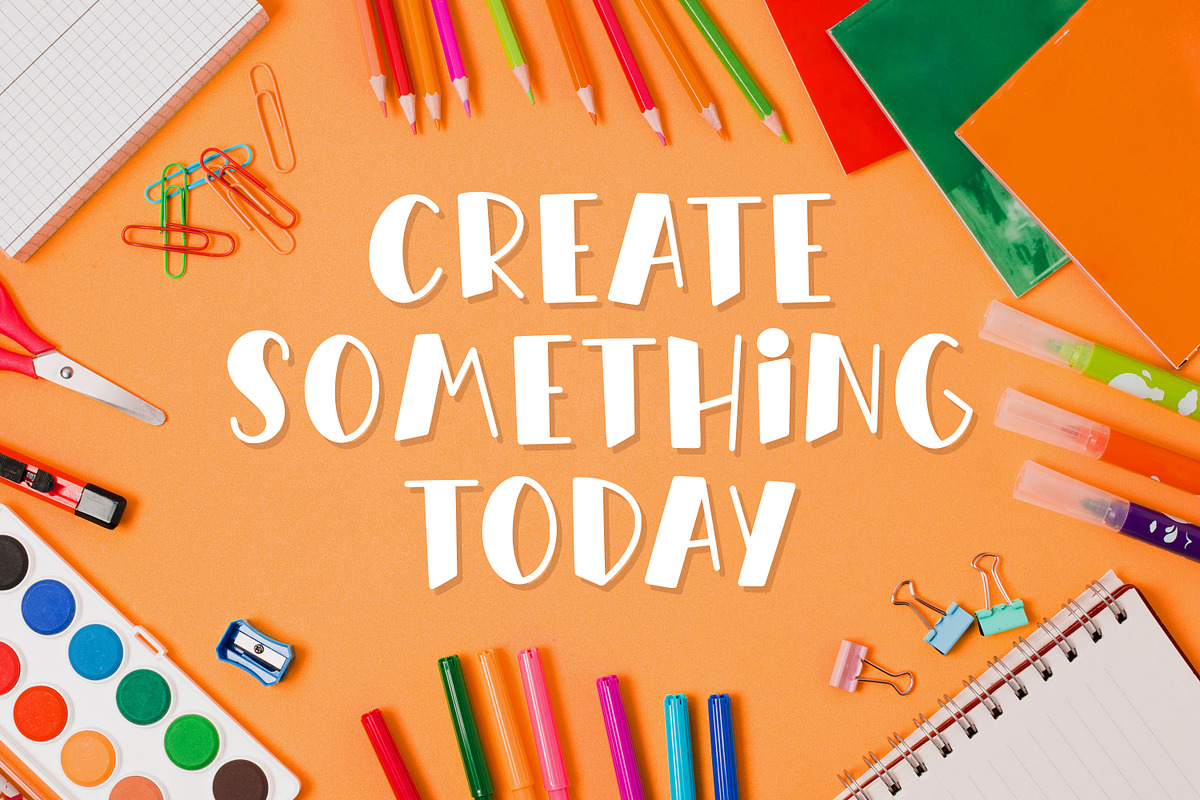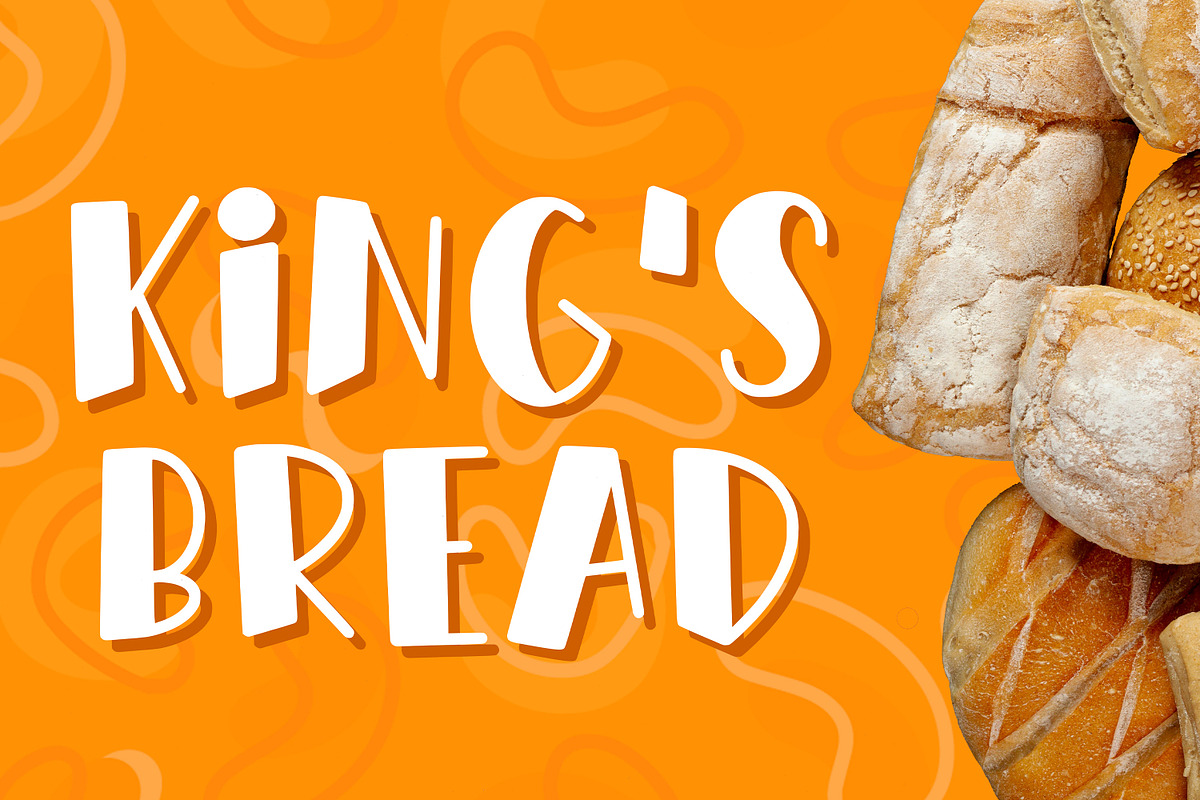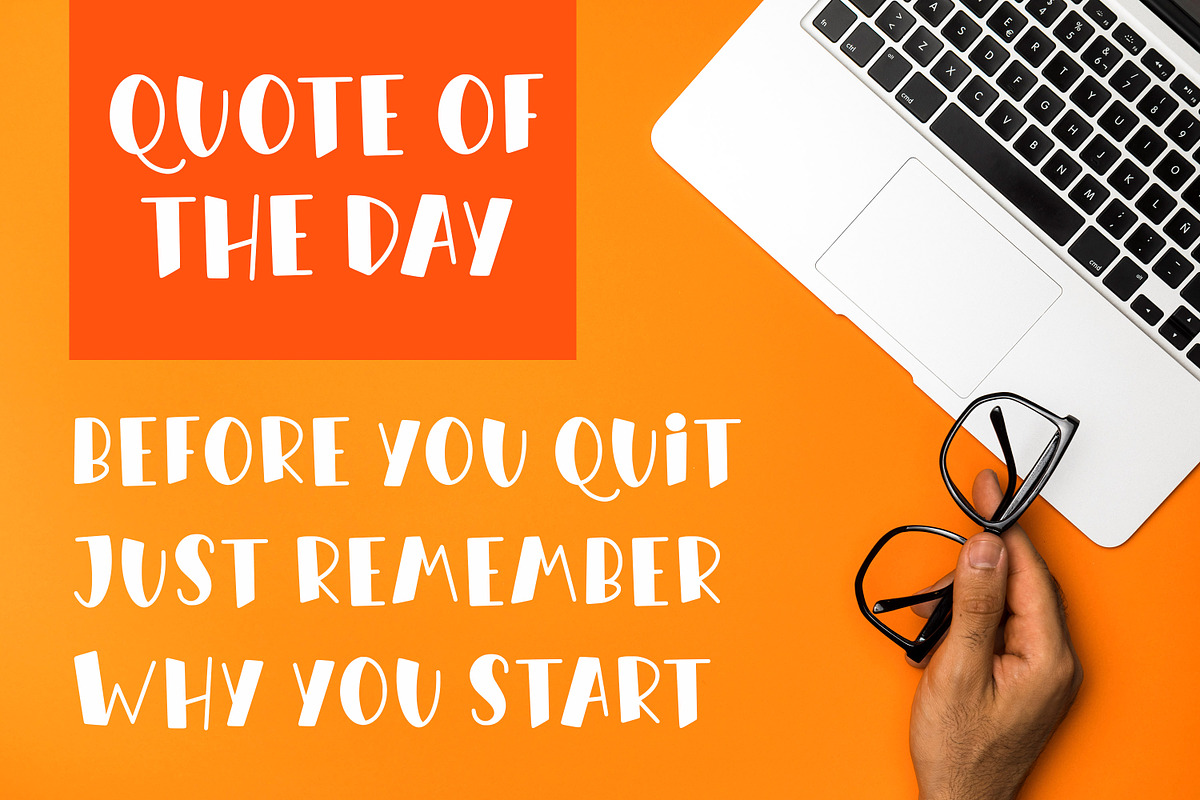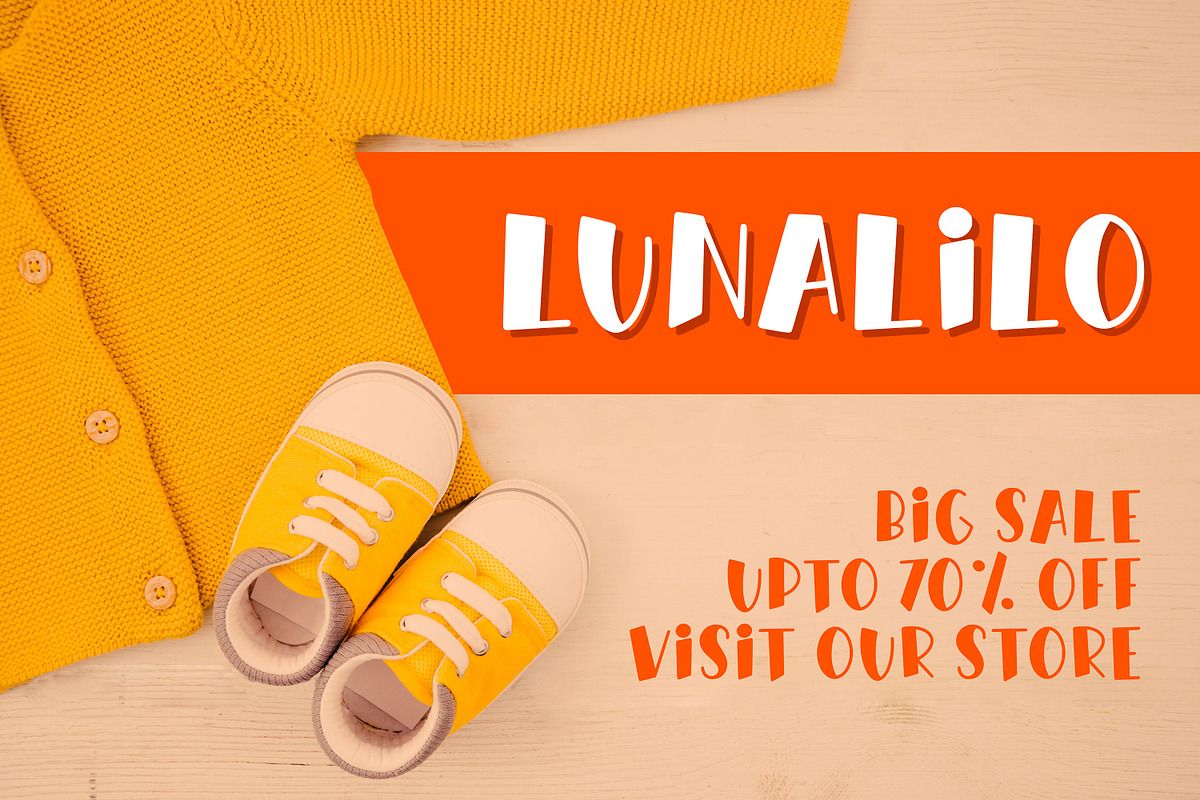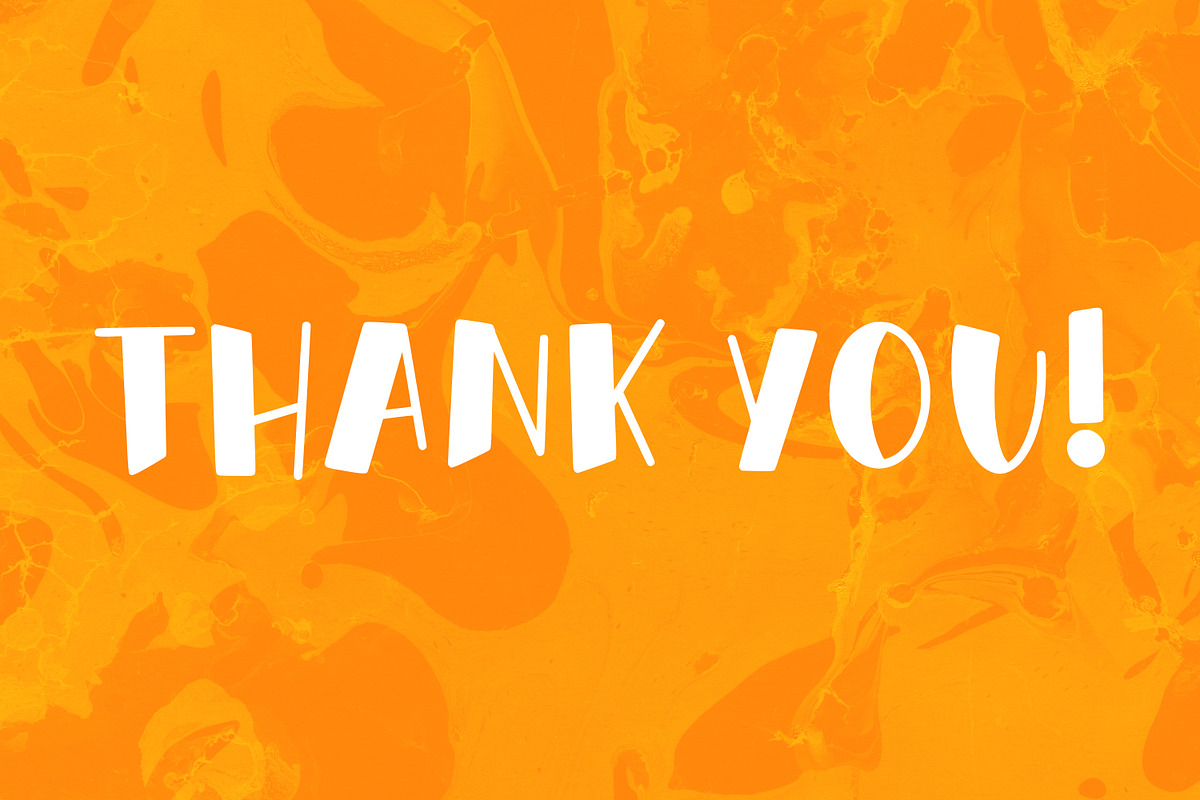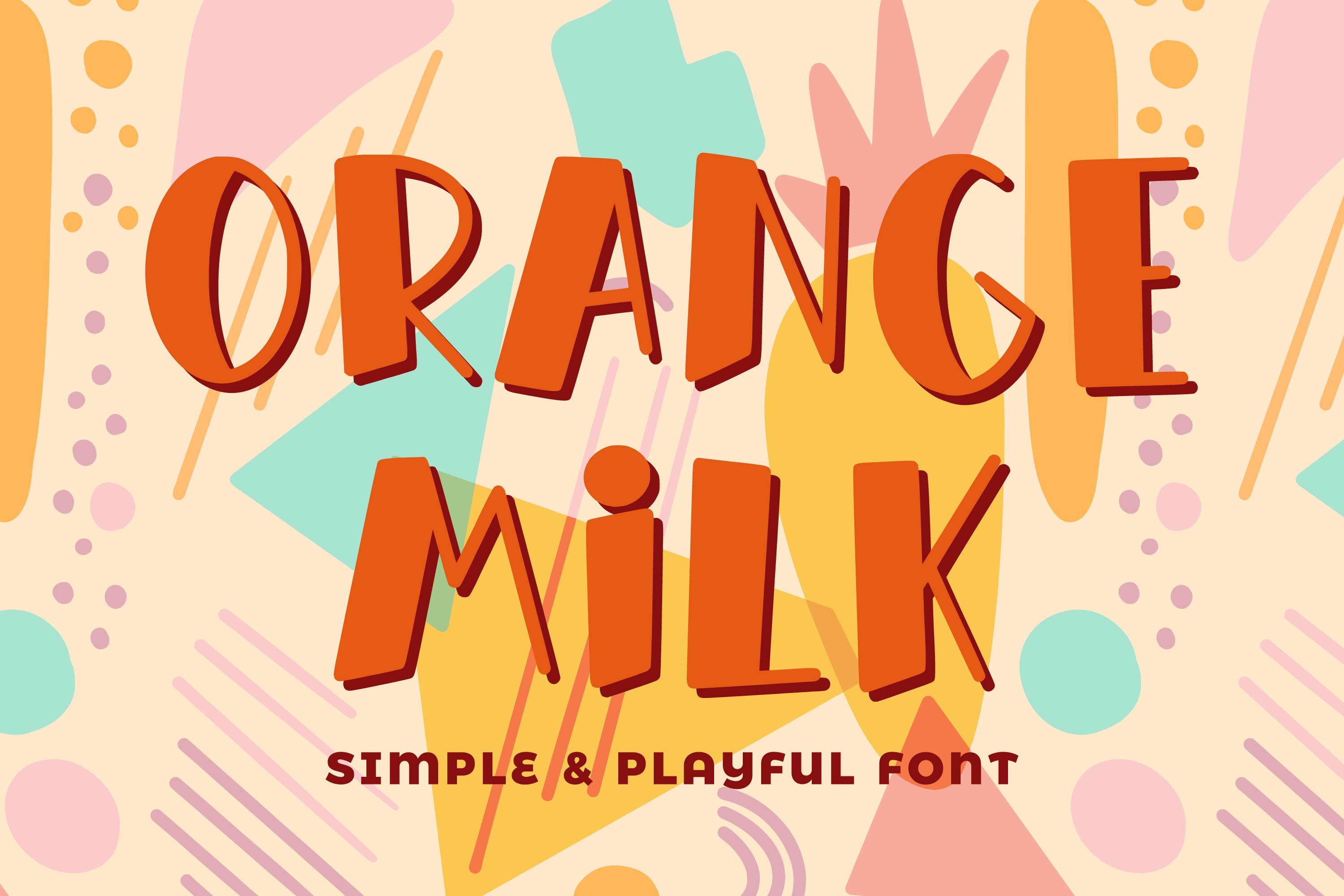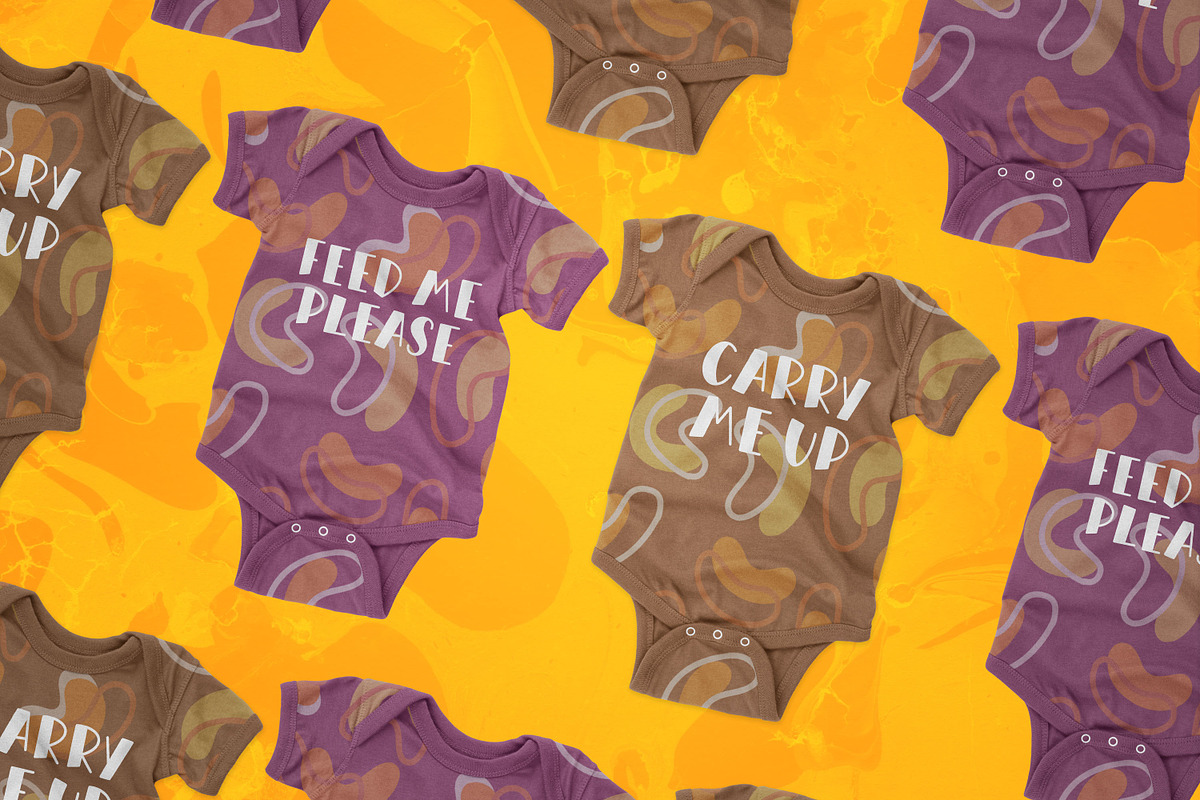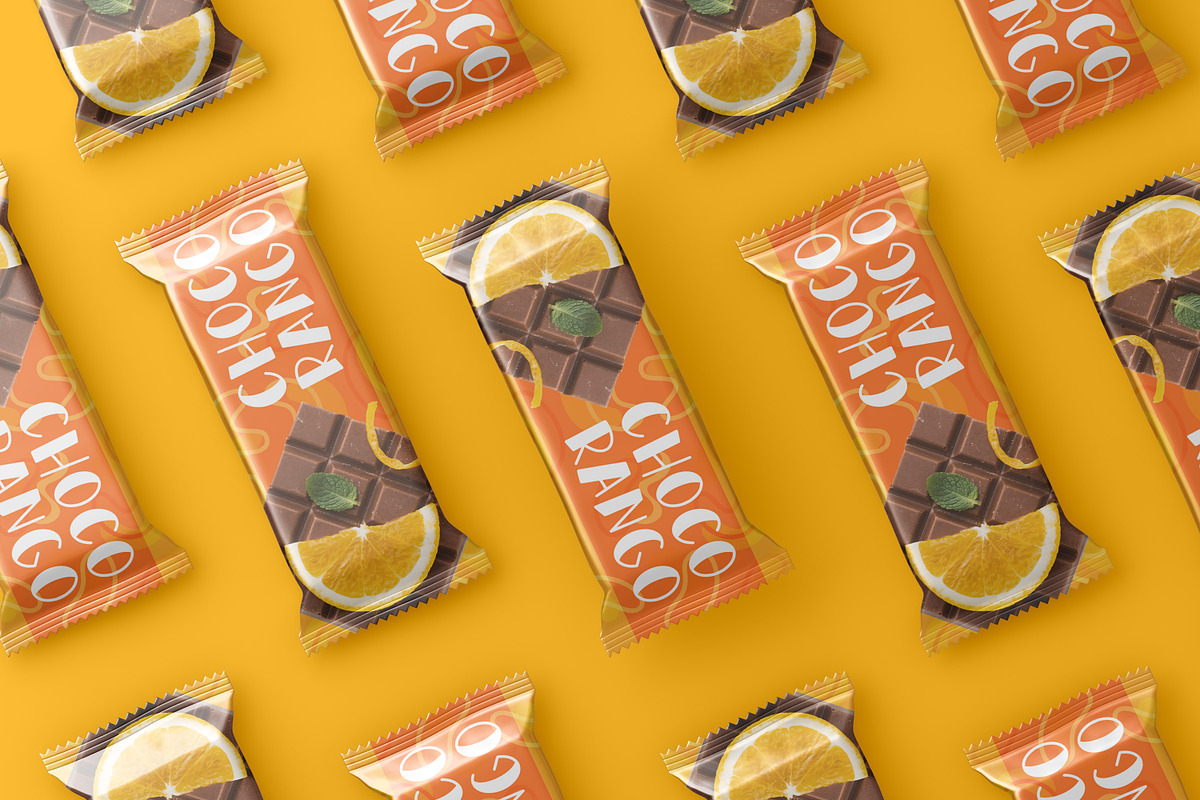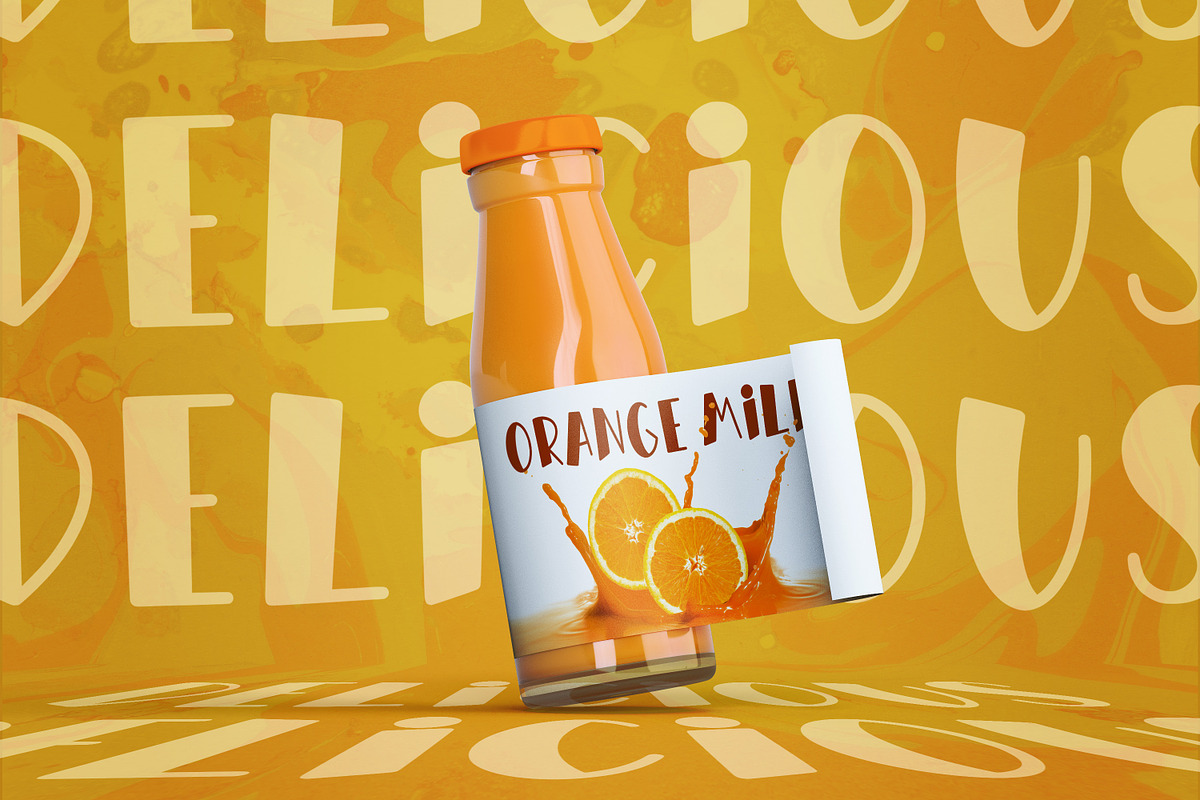
Orange Milk - Simple & Playful Font
Orange Milk is a quirky and fun script full of charm With 2 version Regular and Line . It will take any DIY-project to the next level!
Orange Milk is perfect for Craft , product packaging, product designs, label, branding projects, logo, wedding designs, social media posts, advertisements, watermark, invitation, stationery and any projects